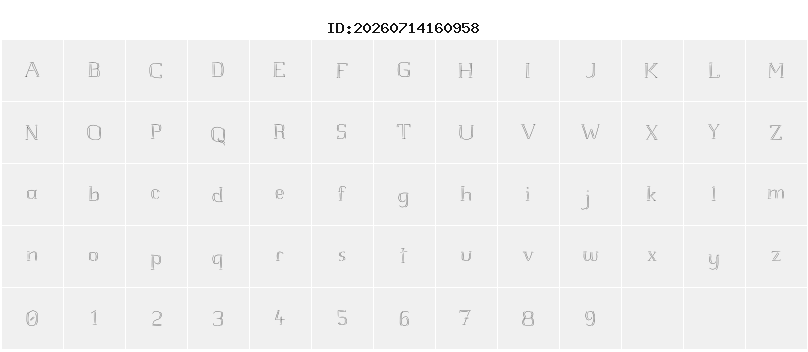
JD Raw Script Preview
• Font Name: JD Raw Script
• Full Font Name: JD Raw Script Regular
• PostScript Name: JDRawScript-Regular
• Designer: Jecko Development
• Manufacturer: Jecko Development
• Description: JD Raw Script TrueType Font by Jecko Development
About JD Raw Script.ttf
JD Raw Script.ttf is a modern, elegant sans-serif font designed for ultimate readability and visual harmony. Perfect for branding, headlines, web design, and print materials.